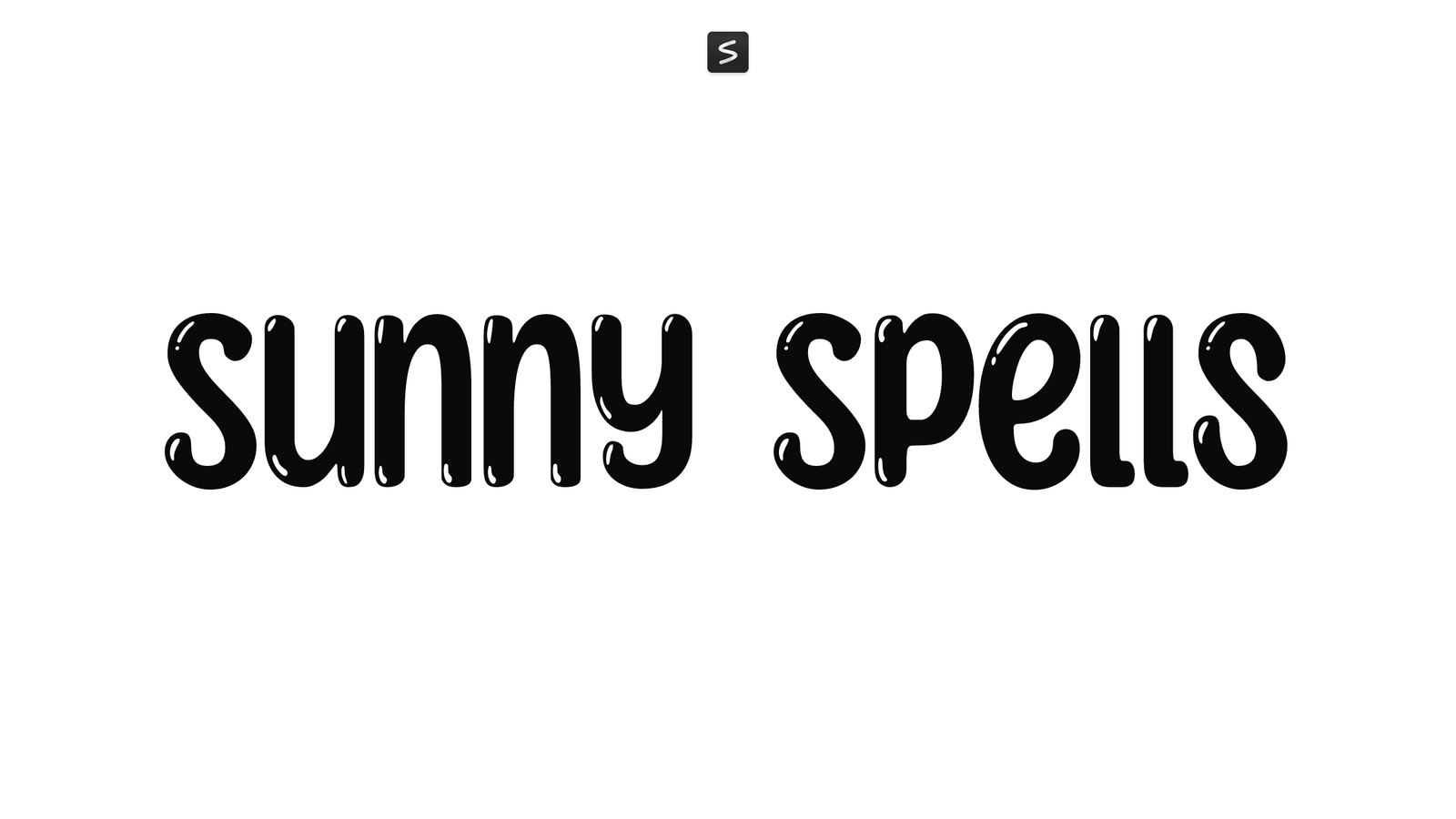
Sunny Spells is a rounded, display typeface by Niskala Huruf with soft, bubbly letterforms and a casual, approachable feel. Its curves and informal character make it suited for work that needs warmth without formality.
The font’s generous spacing and friendly proportions give it a playful quality that reads well in headlines, social media graphics, greeting cards, and packaging. It works particularly well for children’s projects, indie games, or branding that aims for a lighthearted, youthful tone. The rounded style keeps things readable while staying distinctly informal and unpretentious.
Use Sunny Spells when you need type that feels open and inviting rather than serious or refined. It’s a straightforward choice for designs that benefit from a touch of gentle personality.